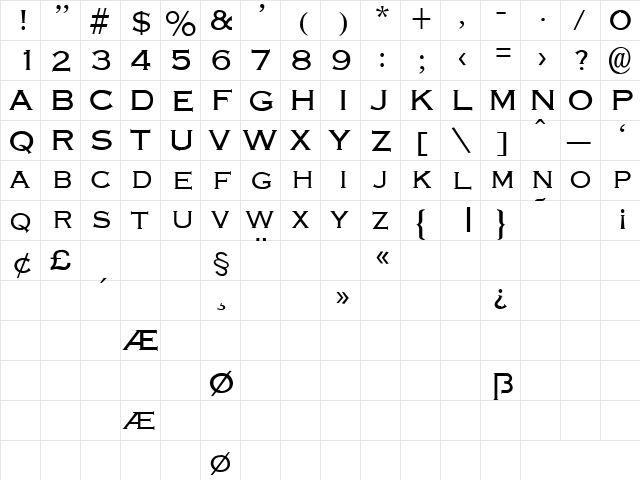
Echoes 1 Regular
Echoes 1 takes a measured approach to typography — its balanced proportions and neutral character make it a reliable workhorse for both digital and print work.